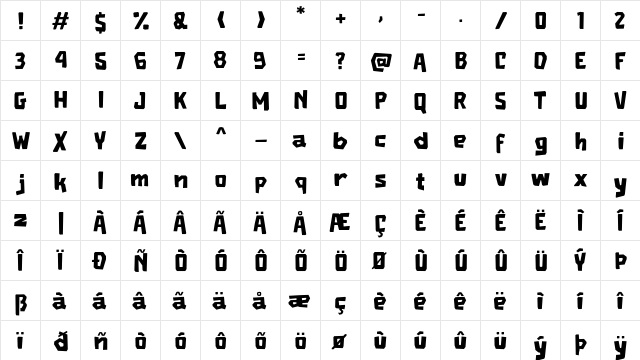
RG JINGLEWOOD Regular
| Foundry | ROLLINGGGOAT Co. |
| Designer | Rollingggoat .Std |
Design Context for RG JINGLEWOOD Typeface
RG JINGLEWOOD echoes the hand-painted signage and woodblock typography of the American frontier, with a warm, rugged personality.
Perfect for barbecue restaurants, country music branding, vintage poster design, and rustic packaging.
Font Pairing: Combine RG JINGLEWOOD with a simple slab or neutral sans — period-accurate companions reinforce the vintage feel without competing for attention.
Pro Tip: Pair RG JINGLEWOOD with aged textures or distressed backgrounds to amplify its vintage personality.